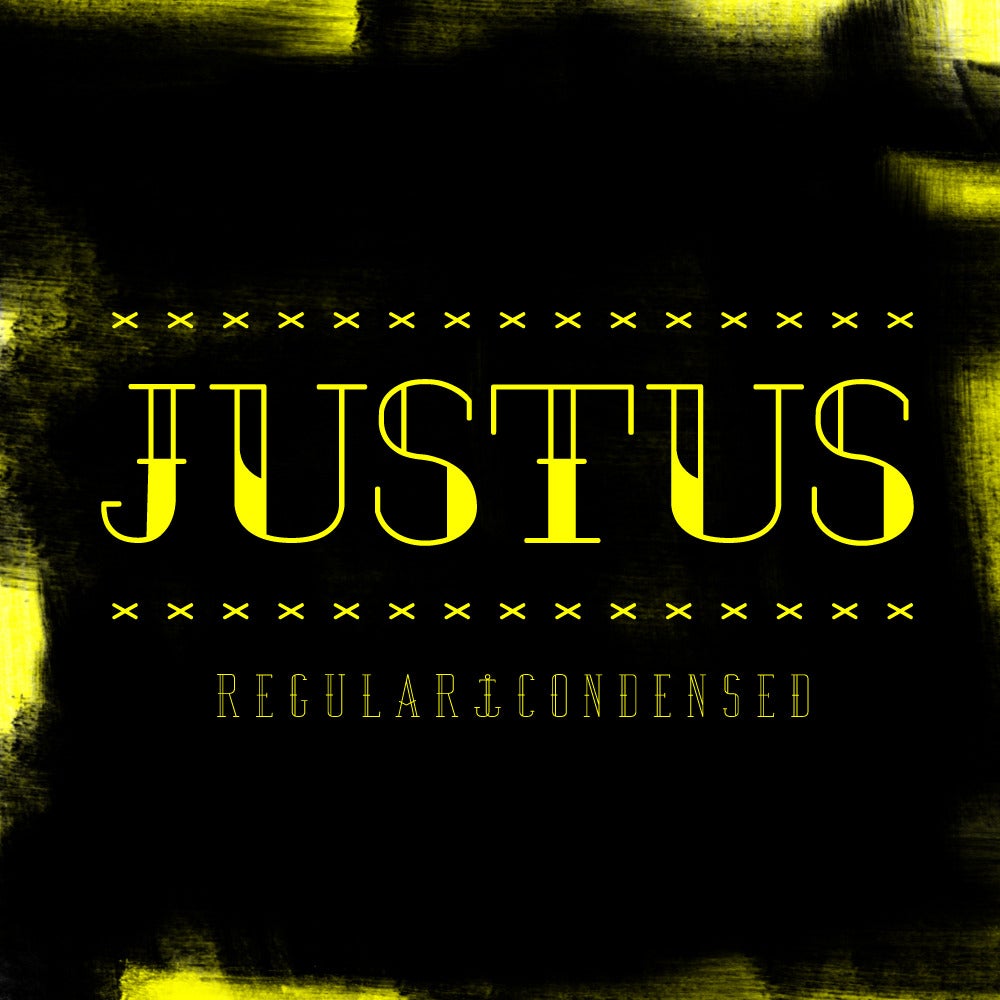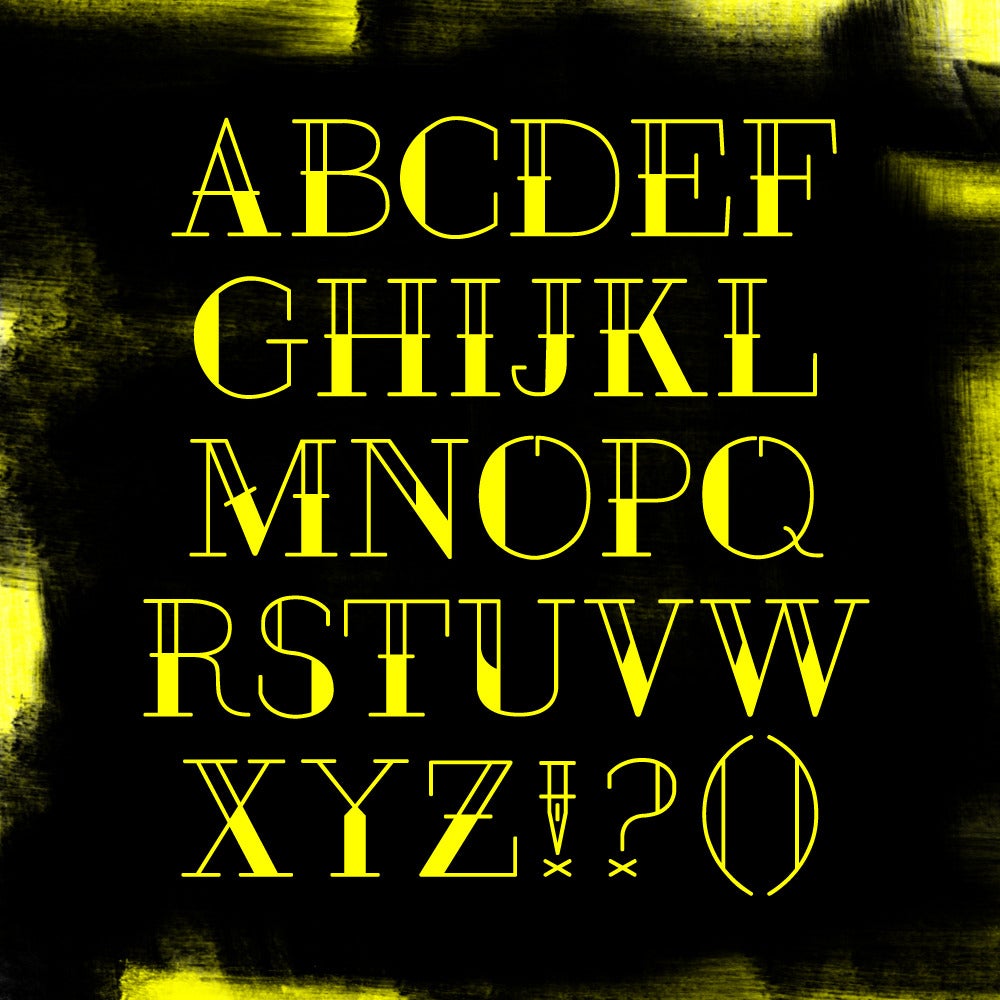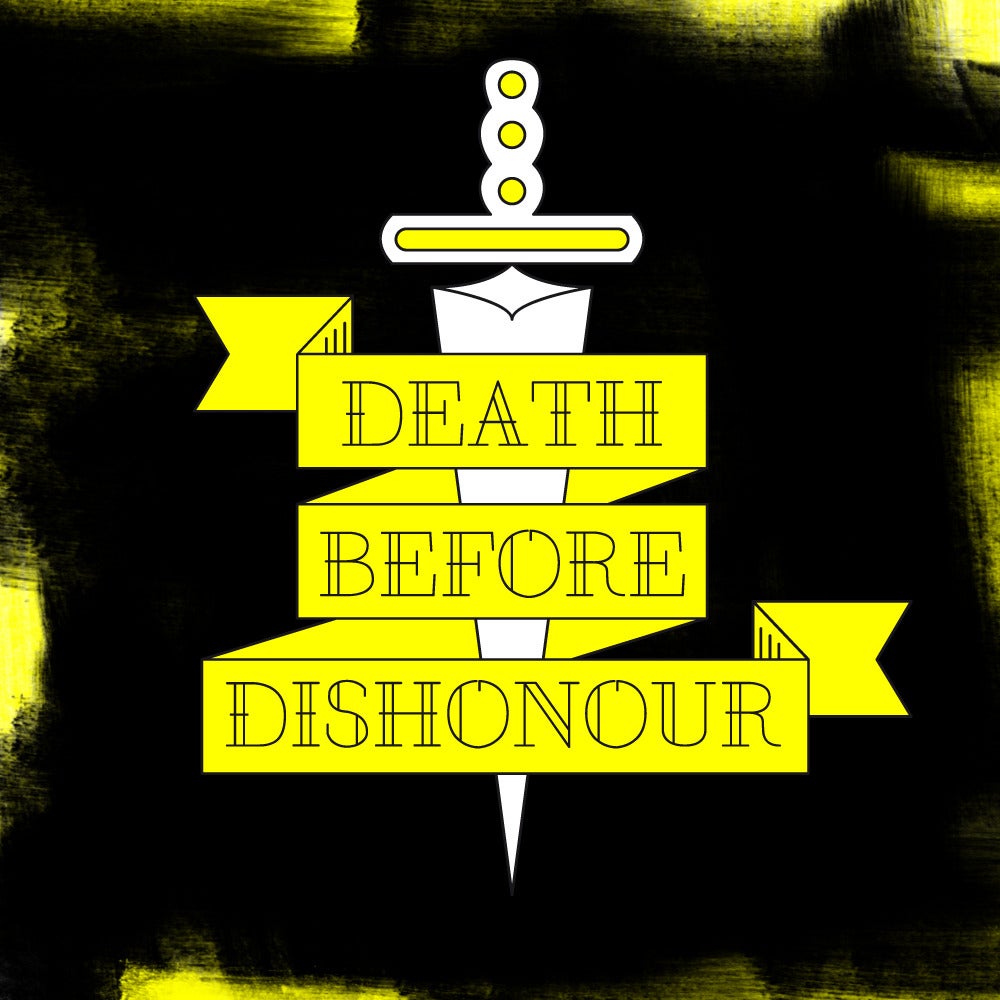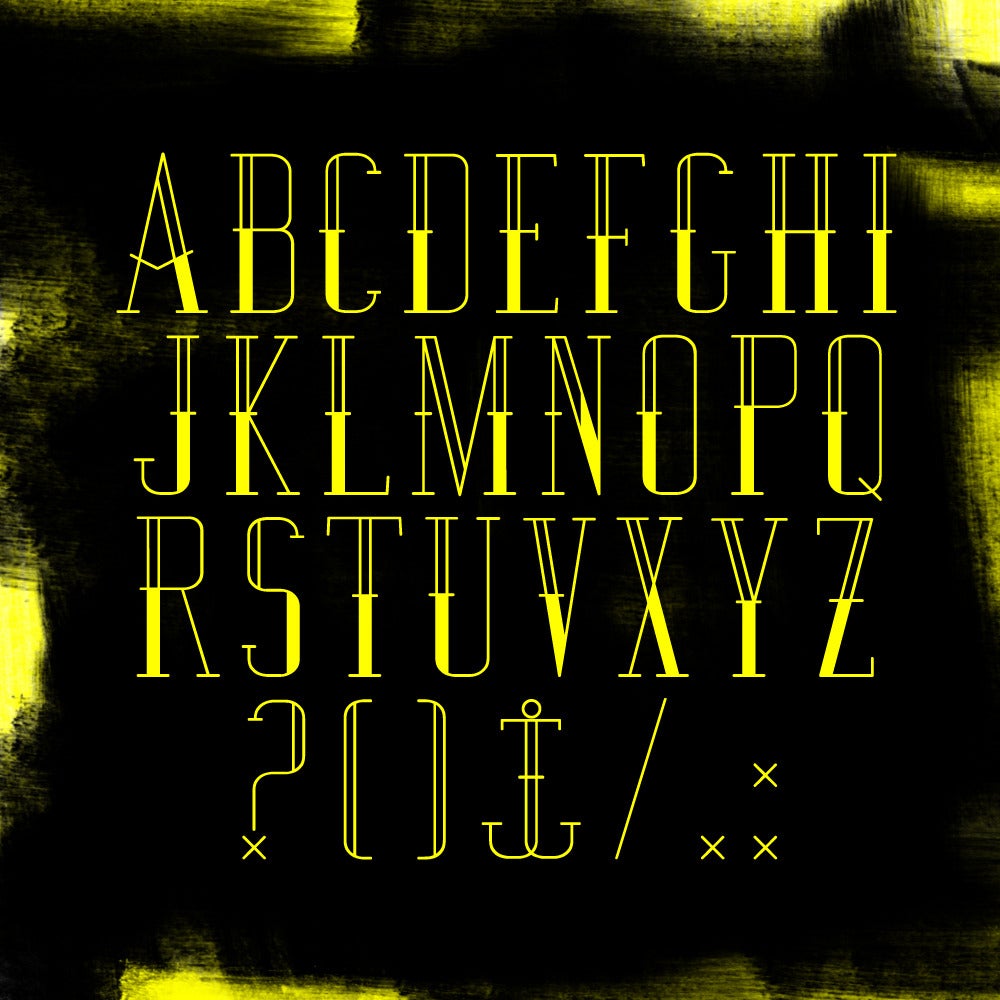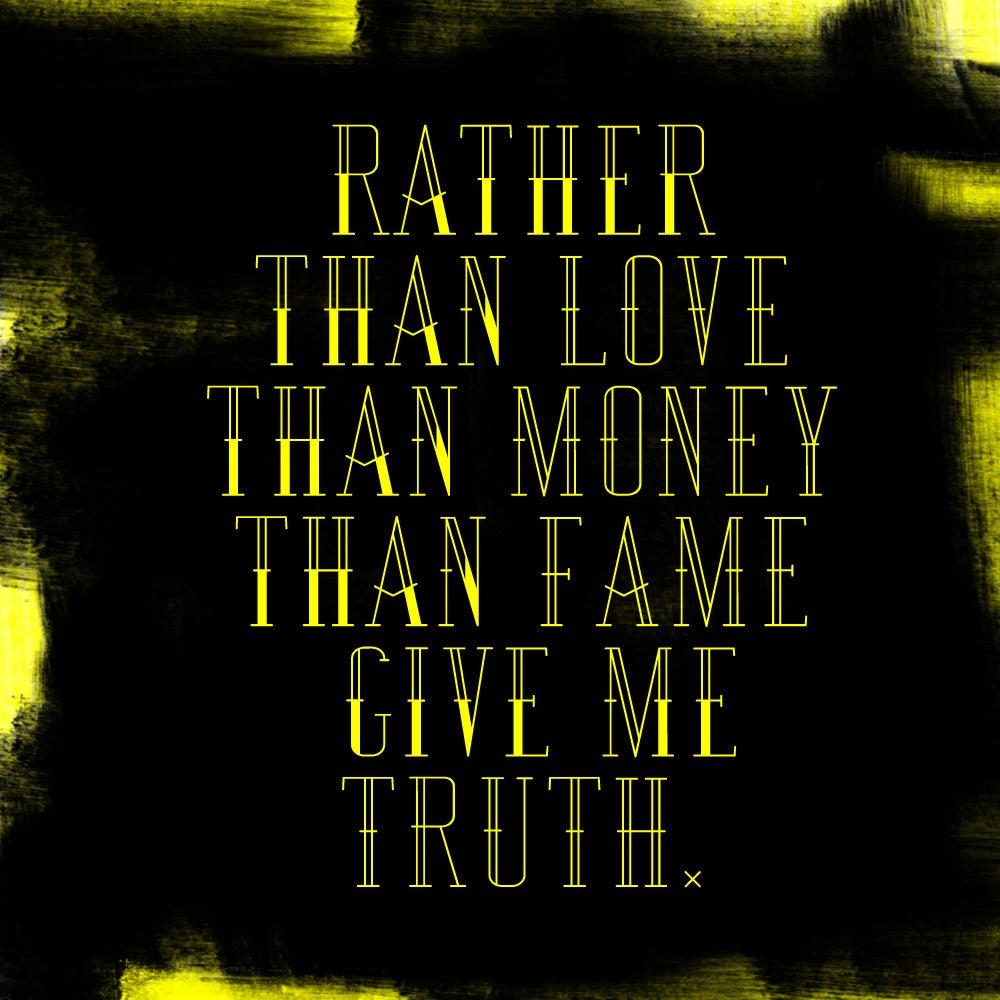
Justus
A combination of a classic font like Walbaum with the lettering of tattoos, especially used those used in knuckle tattoos. The result is a more useable display and headline font for the main use in editorial design projects.